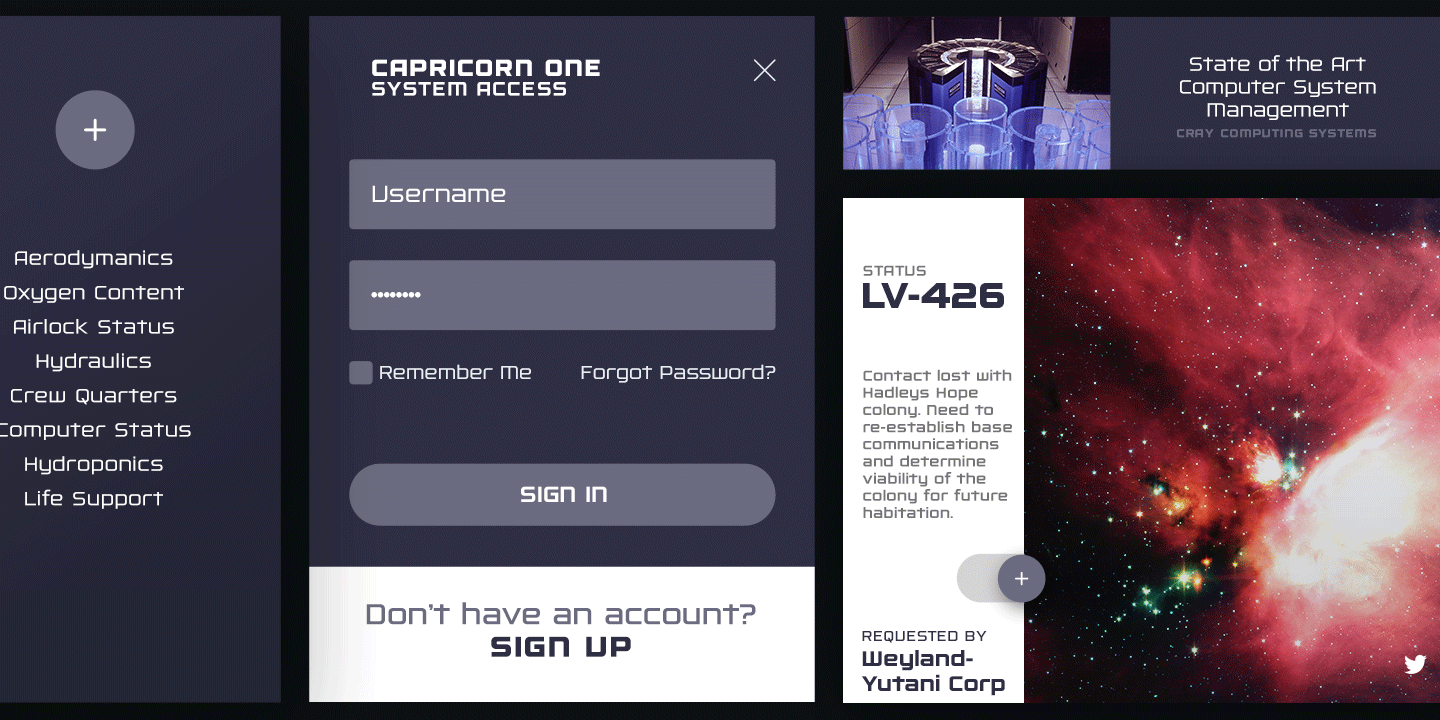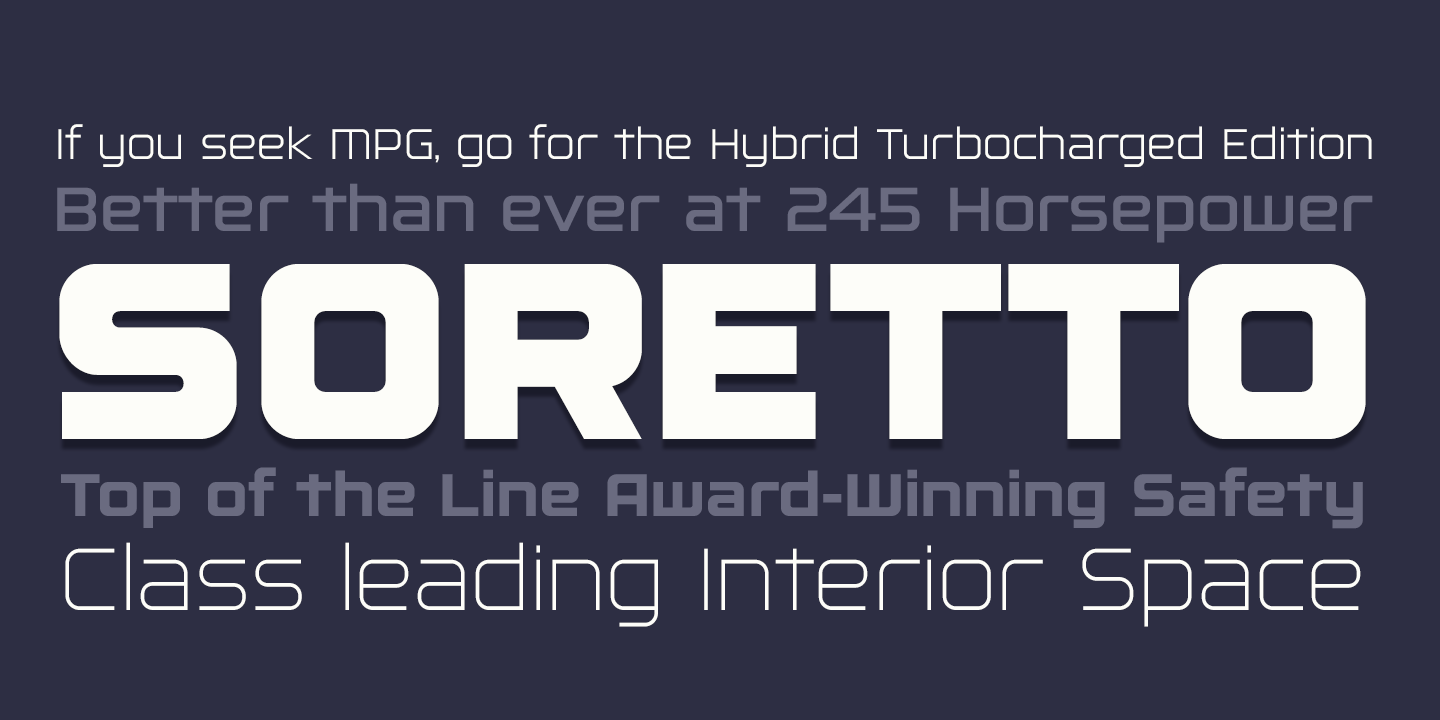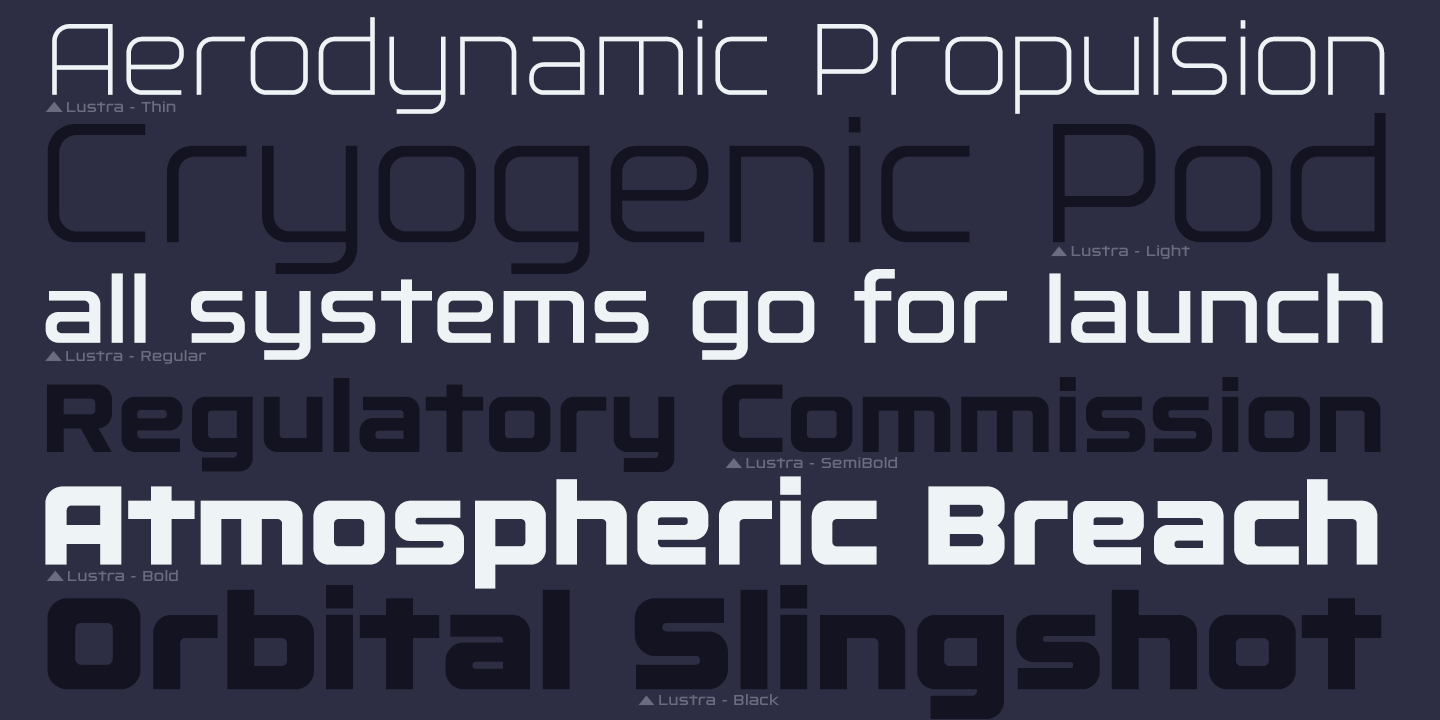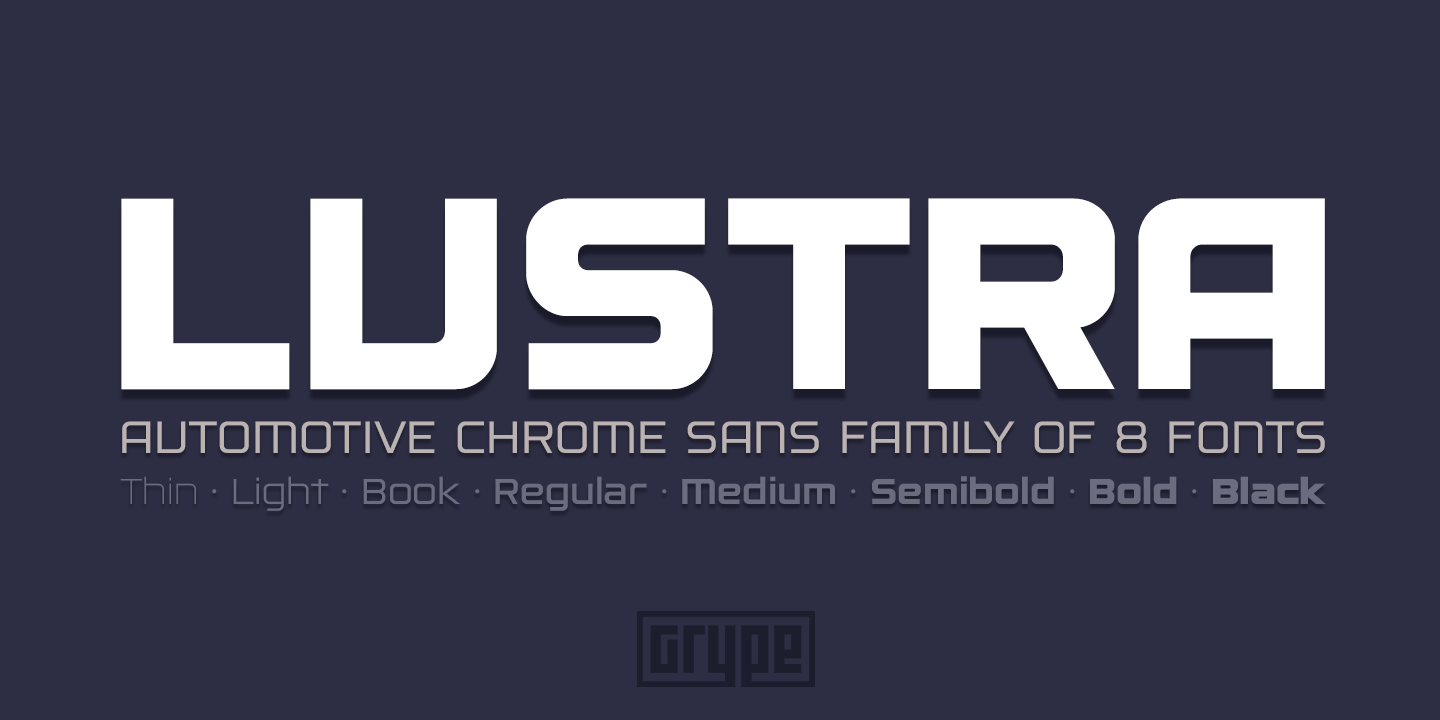
About Lustra
Since the early 1980\’s, the automotive industry has been developing geometric/technical style logotypes for car chrome labels. The styles are ripe with inspiration for great font families, but surprisingly, many of these sleek logotypes are lacking an…